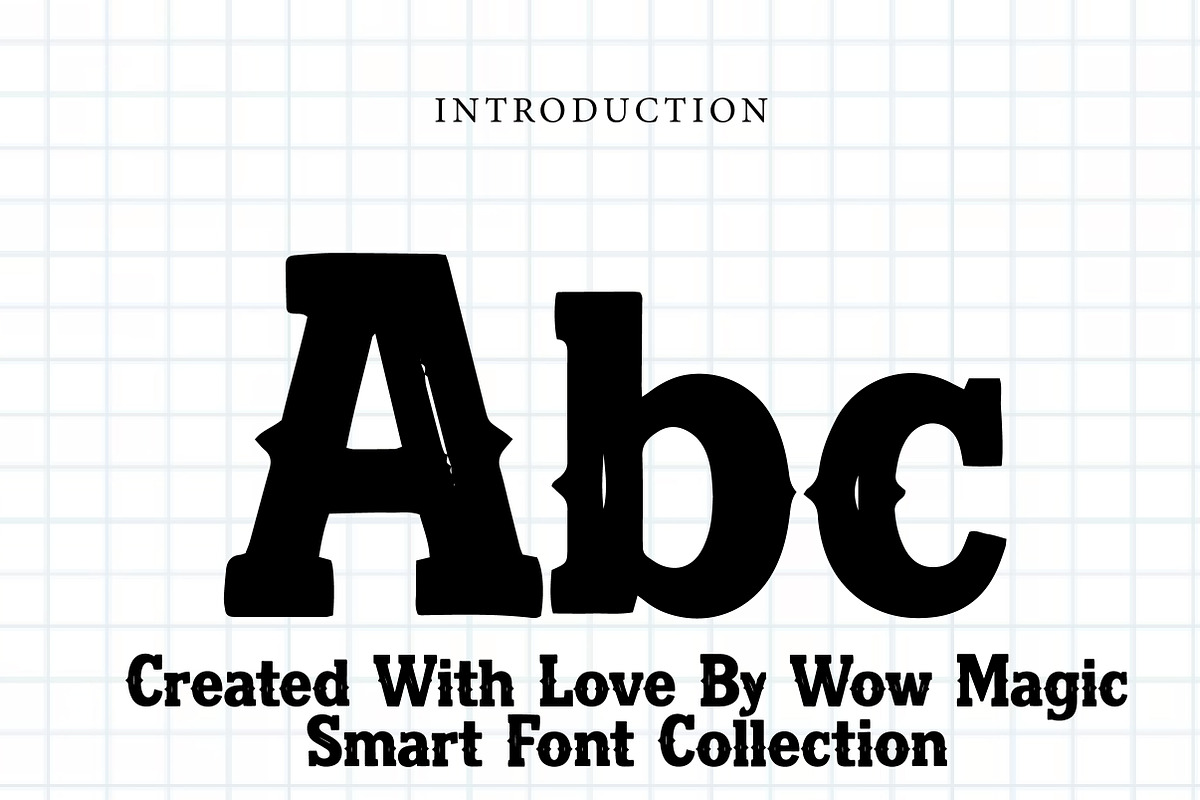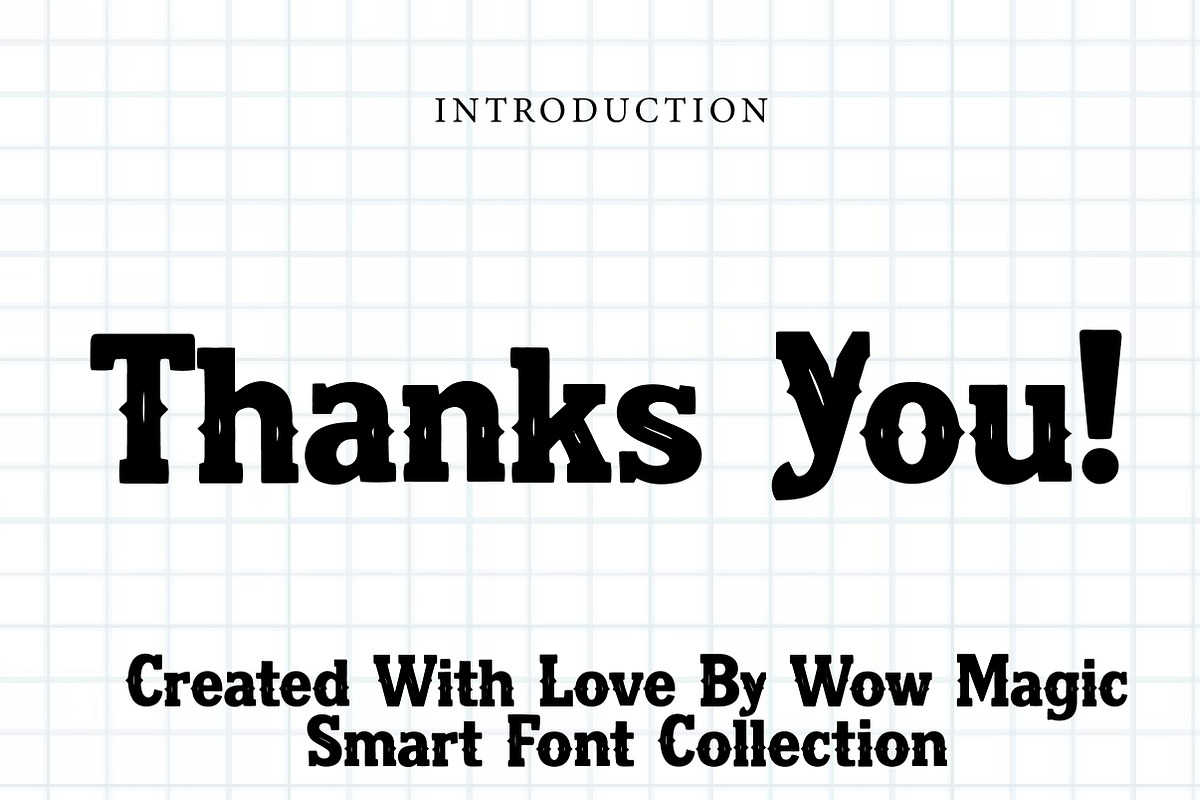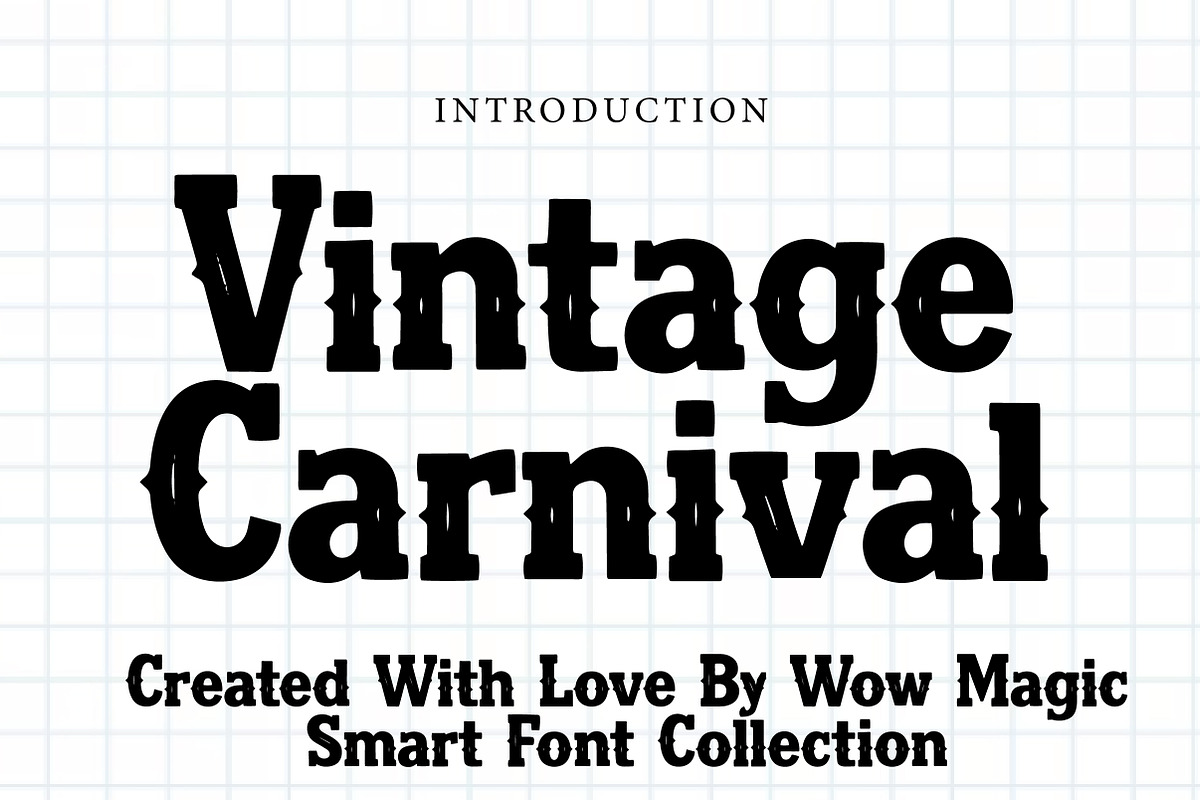
Vintage Carnival
Vintage Carnival is a bold decorative display font inspired by classic circus posters, old carnival signage, and nostalgic fairground typography. With its strong serif structure, playful curves, and distinctive vintage character, this typeface captures the joyful and theatrical spirit of traditional carnival design.
The slightly textured and stylized letterforms give it an authentic retro feel, making it perfect for posters, event flyers, branding, packaging, logos, and entertainment-themed designs. Its bold presence ensures high visibility while adding charm, personality, and a sense of fun to every project.
Vintage Carnival is ideal for designers who want to create eye-catching, nostalgic visuals with a festive and vintage touch. Whether you are designing for events, promotions, or themed branding, this font brings excitement and timeless character to your typography.